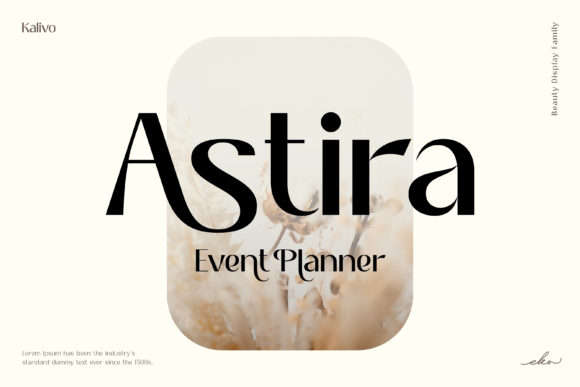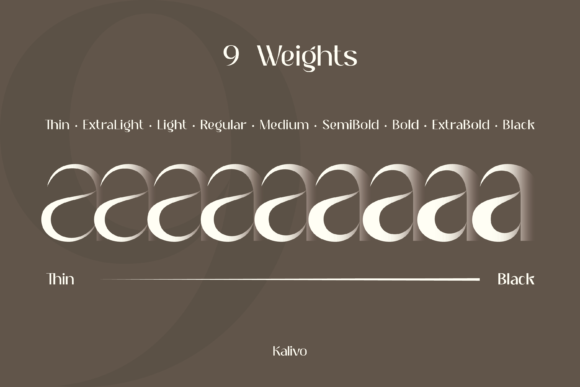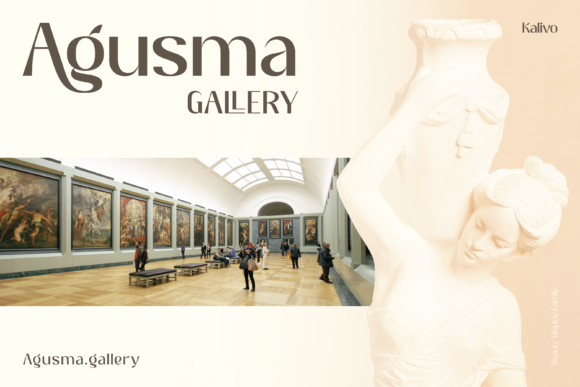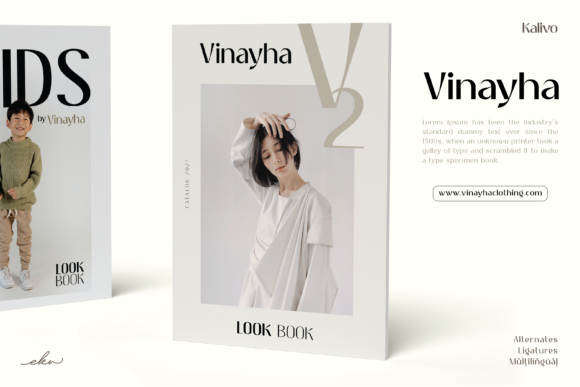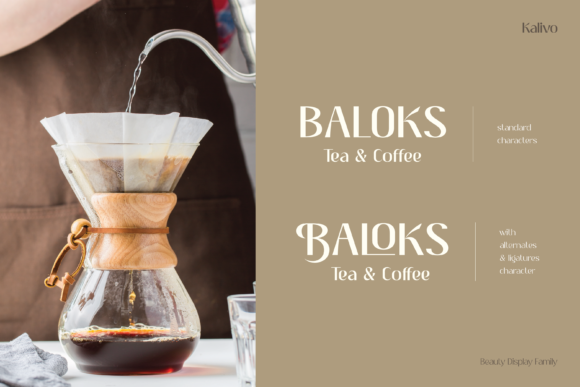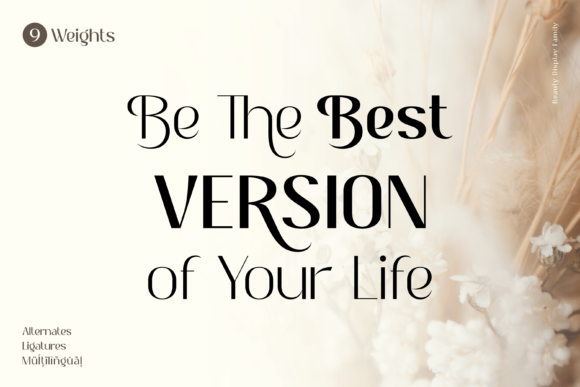
Introduction to Kalivo Font
As designers, we’ve all been there – staring at a blank canvas, trying to bring our creative vision to life. The perfect font can make all the difference, elevating our designs from bland to grand. And that’s exactly where the Kalivo Font comes in – a stunning sans serif font that’s sure to leave a lasting impression.
With its elegant, thin lettering and smooth curves, Kalivo Font is perfect for fashion branding or editorial designs that require a touch of sophistication. Whether you’re working on a high-end fashion campaign or a glossy magazine spread, this versatile font is sure to deliver high-quality results. And the best part? It’s a valuable addition to any design resource, offering a level of flexibility that’s hard to resist.
Key Features of Kalivo Font
- High-quality, professional design suitable for various creative projects, such as logos, typography, and branding materials.
- Includes a range of font styles, including bold, italic, and regular, providing flexibility for creative expression.
- Designed with a clean, modern aesthetic, making it an ideal choice for contemporary design projects.
Honest Review: Kalivo Font
As a designer, I’m always on the lookout for high-quality design resources to elevate my creative projects. Recently, I stumbled upon the Kalivo Font, and I’m excited to share my thoughts with you.
- ✨ The Kalivo Font has a modern and sleek design that’s perfect for digital interfaces and UI elements.
- ✨ It comes in multiple weights, from light to bold, allowing for versatility in your design projects.
Overall, the Kalivo Font is a great design resource for digital projects. While it may have some limitations, its modern design and free availability make it a worthwhile addition to your design toolkit. Just be sure to use it wisely and within the bounds of the license agreement.
Tips for Getting the Most Out of Kalivo Font
To get the most out of the Kalivo Font, use it for creative projects that require a high-quality, unique font. You can also experiment with different font sizes, colors, and styles to achieve the desired effect.
The Kalivo Font is commonly used for:
- Creative projects, such as logos and graphics
- Presentations and documents with a transparent background
- Social media graphics and online advertising
Alternatives to Kalivo Font
Montserrat is a high-quality sans-serif font suitable for creative projects that require a modern and sleek design. It features a transparent background, making it perfect for use on various design resources such as logos, headings, and titles.
When to use: Montserrat is ideal for designs that require a clean and minimalist aesthetic, such as business cards, resumes, and websites.
Comparison to Kalivo Font: Montserrat is more geometric and modern compared to Kalivo Font’s rounded edges and classic feel.